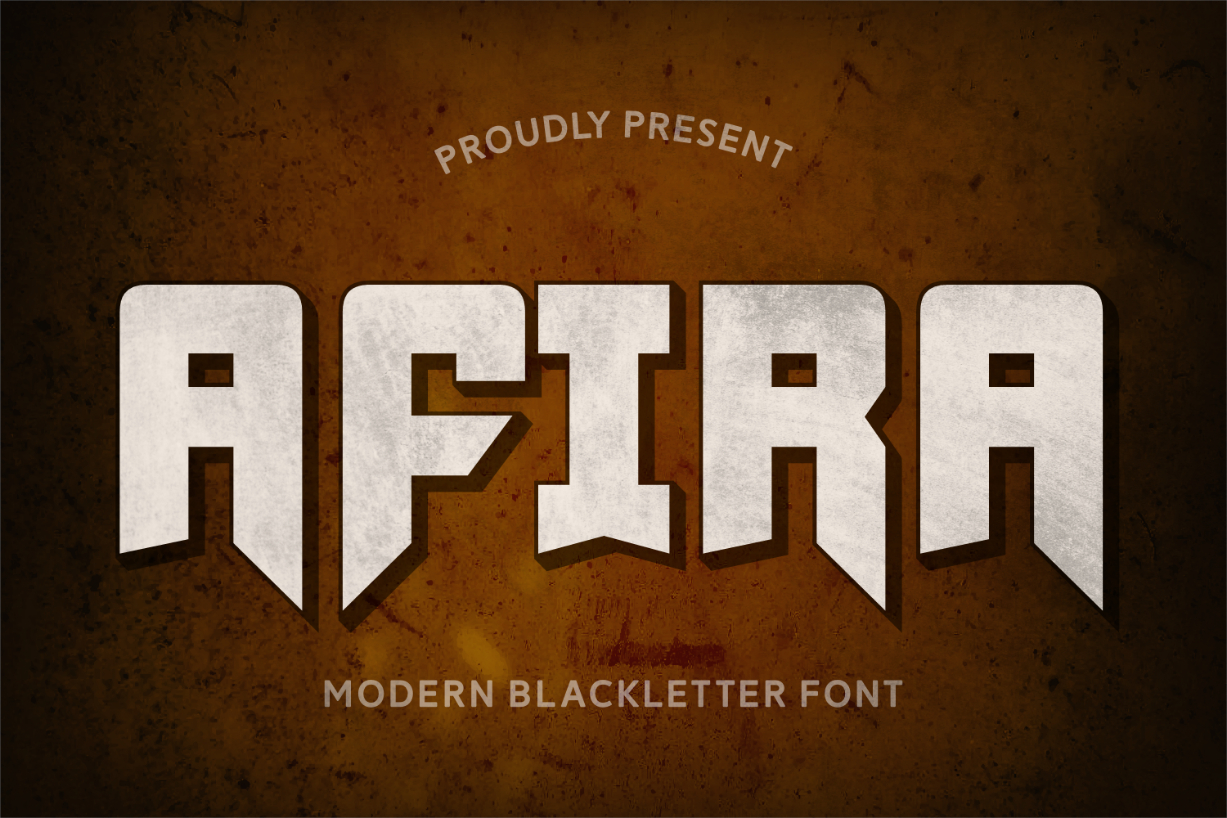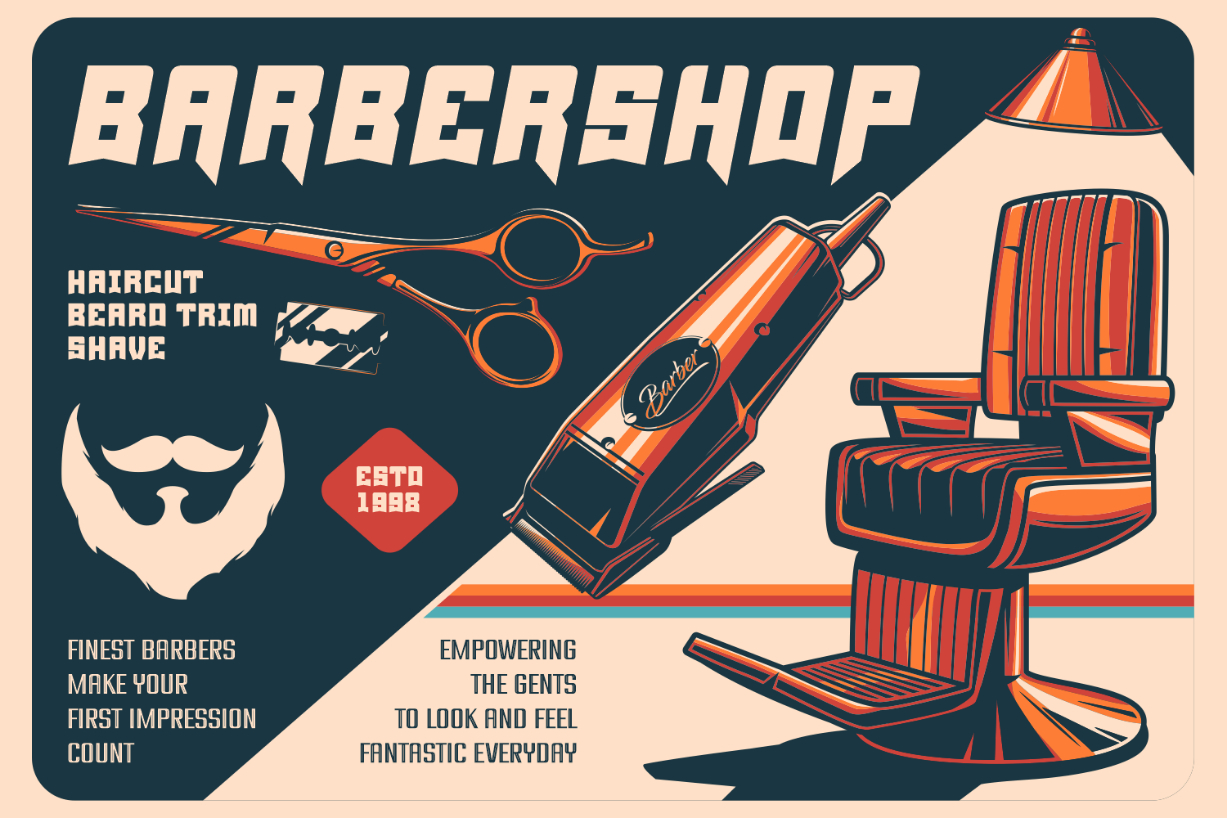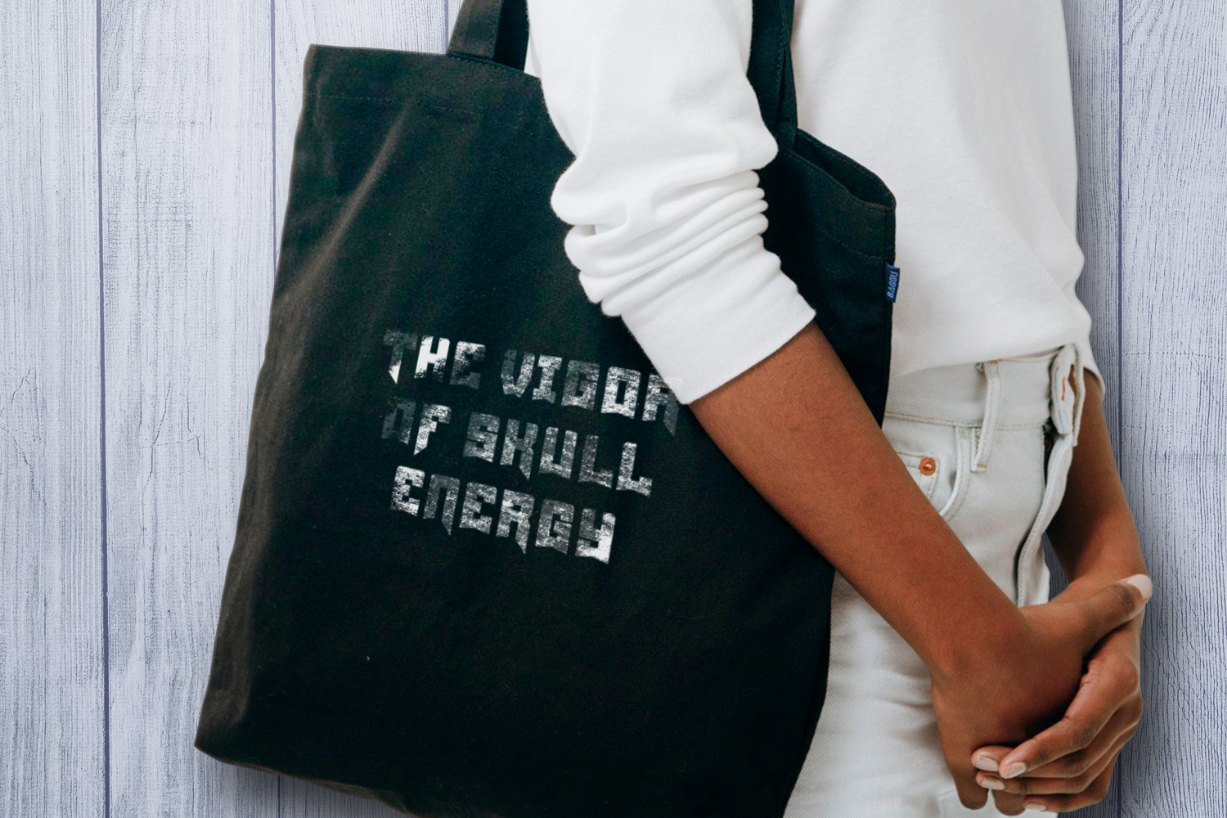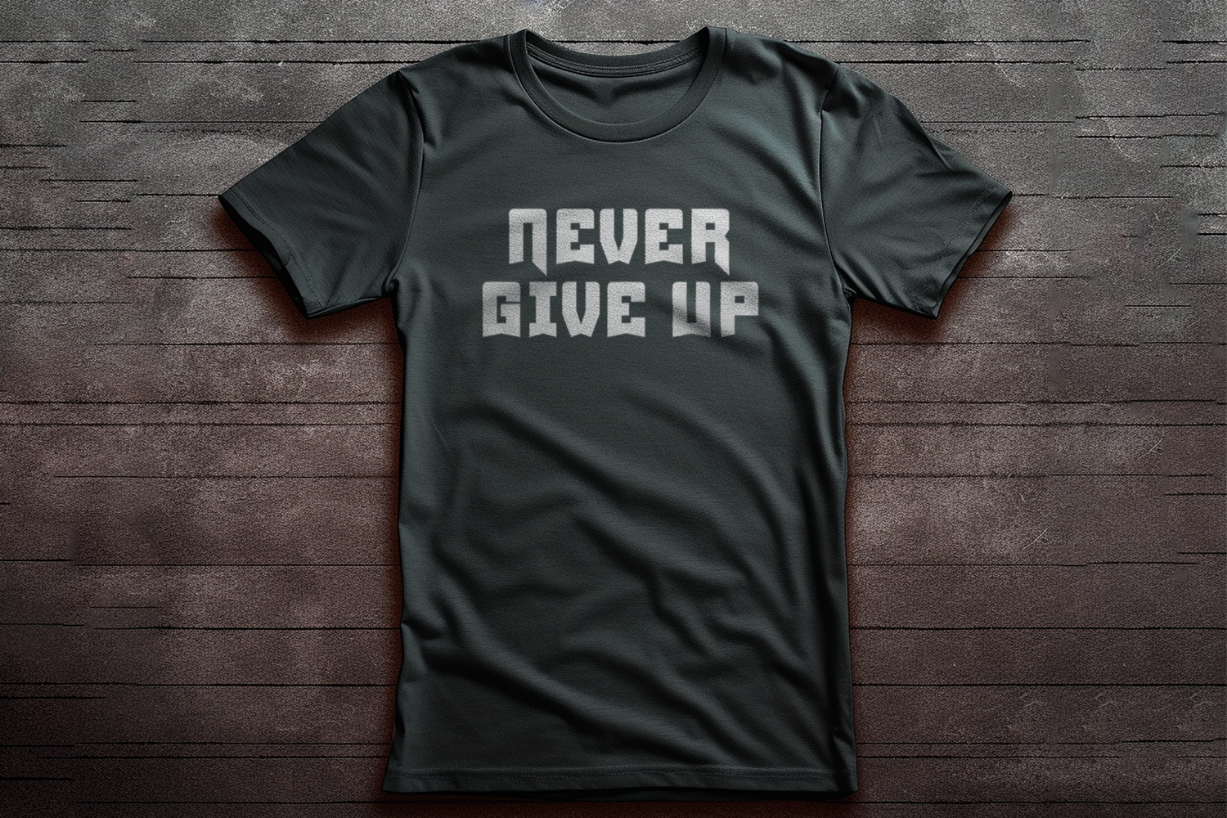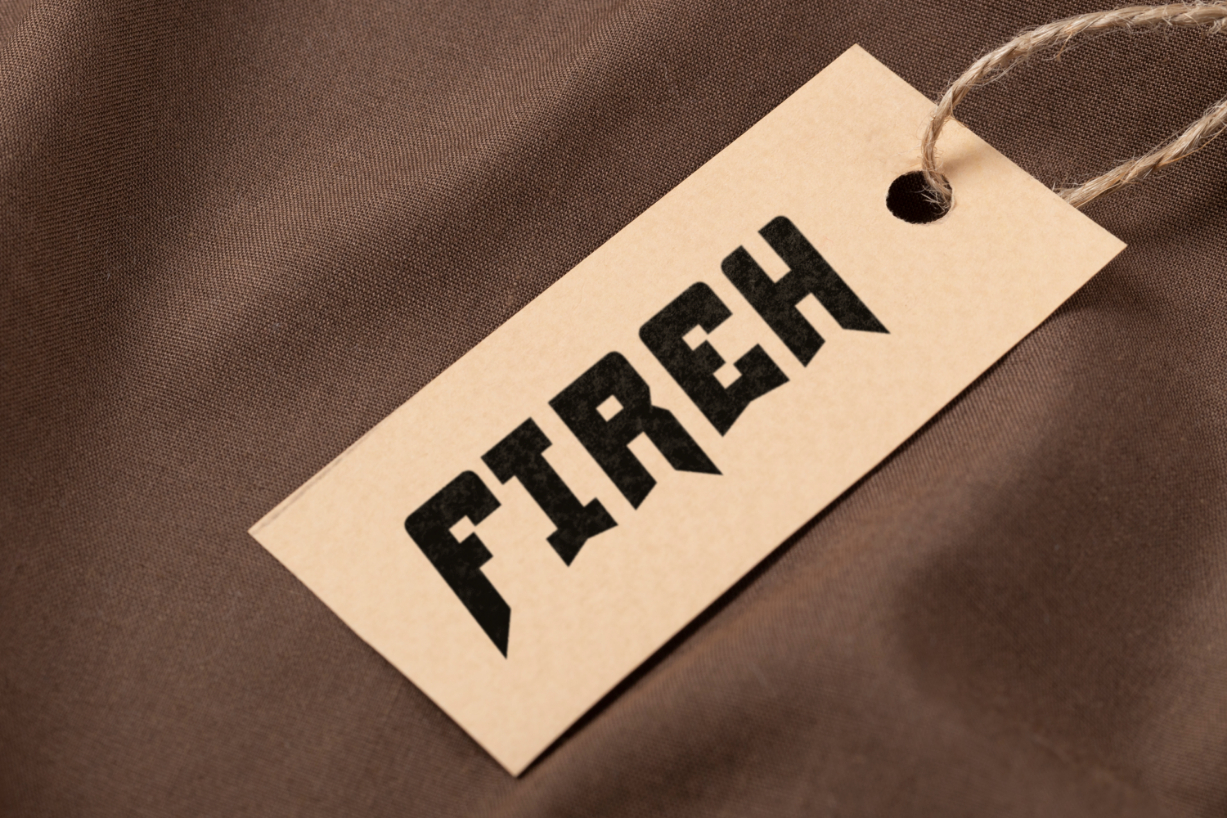
Afira Font
About Afira Font
Afira is a thick and modern blackletter font. These bold and stylish characters are perfect for creating an eye-catching look, no matter the topic. Choose between the regular and italic versions, and use them to create impressive typography for various types of projects!